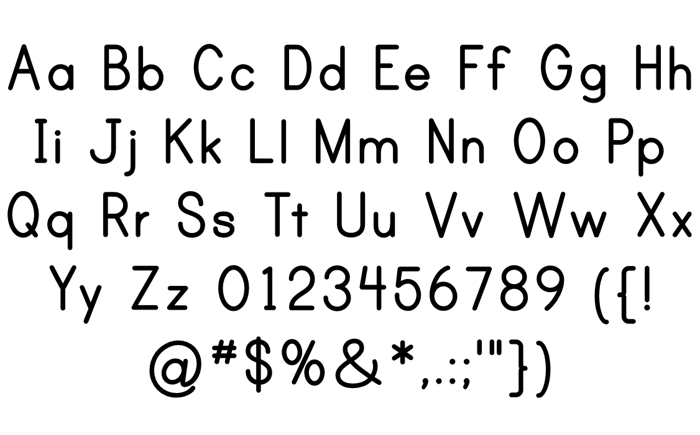
Print Clearly Font
A textface that has the look of a primer worksheet for teaching handwriting. Print Clearly is available in three styles Regular, Dashed and Bold.